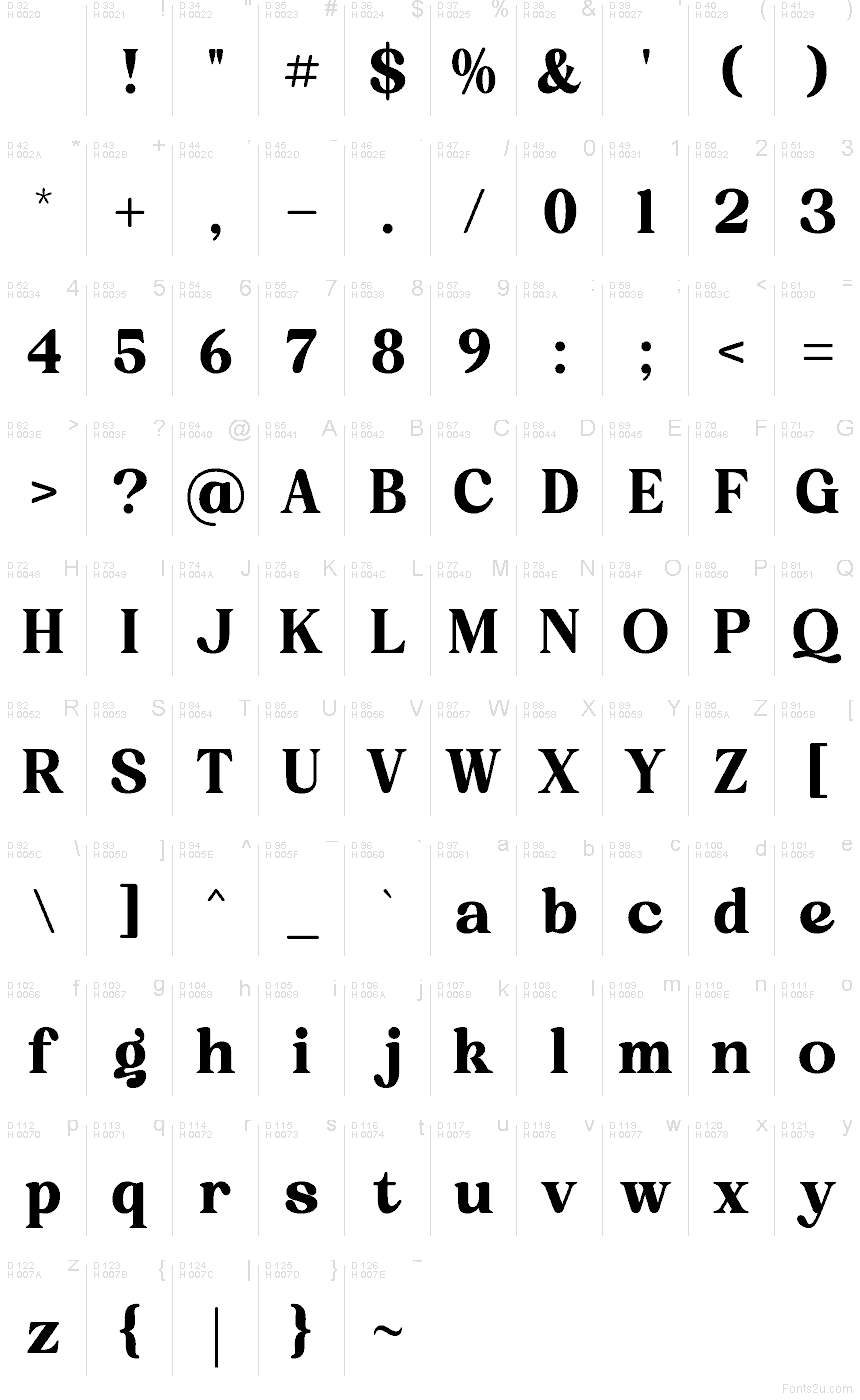
Sunday Ridges from TimelessType.co is a free old-style serif with a warm, slightly nostalgic tone. The letters feel soft and generous rather than severe, with rounded curves, pronounced serifs, and a gentle contrast that gives the font an inviting editorial rhythm.
It fits naturally in boutique branding, cafe menus, magazine cover lines, packaging, and bookish title treatments where that classic softness can do the work. As a free font, it also makes sense for short headlines, pull quotes, and logo-style wordmarks, especially when you want serif details that feel friendly instead of formal.